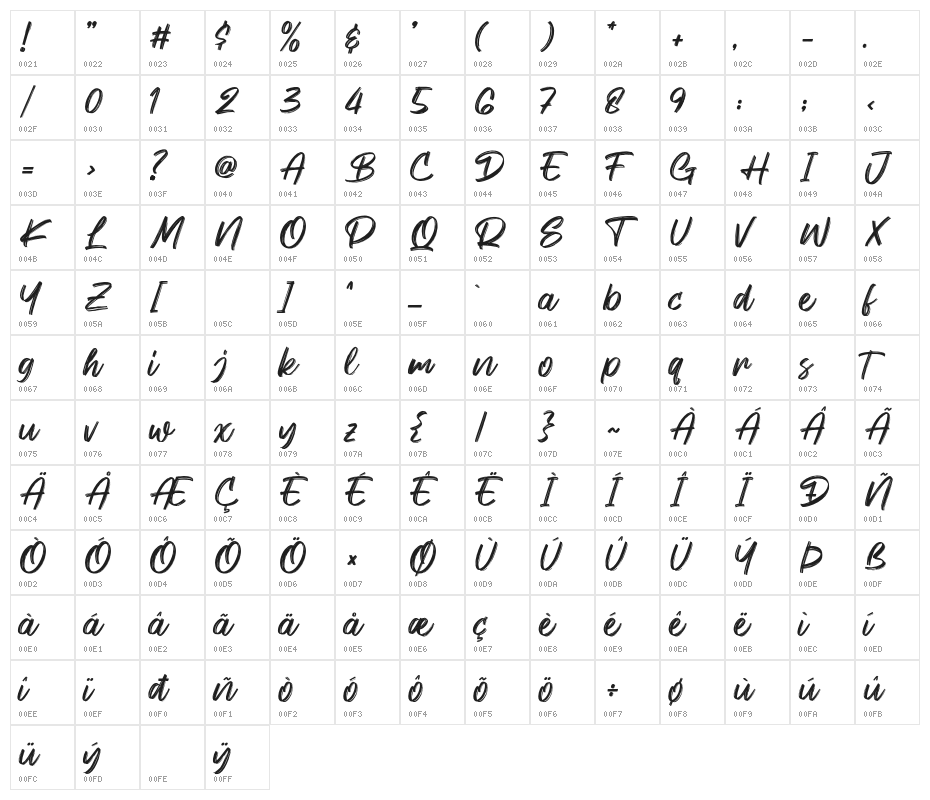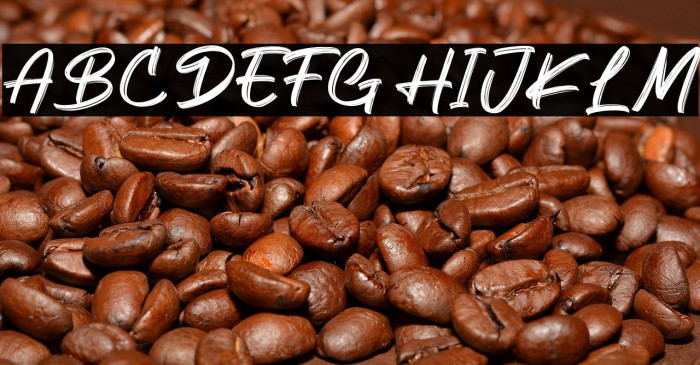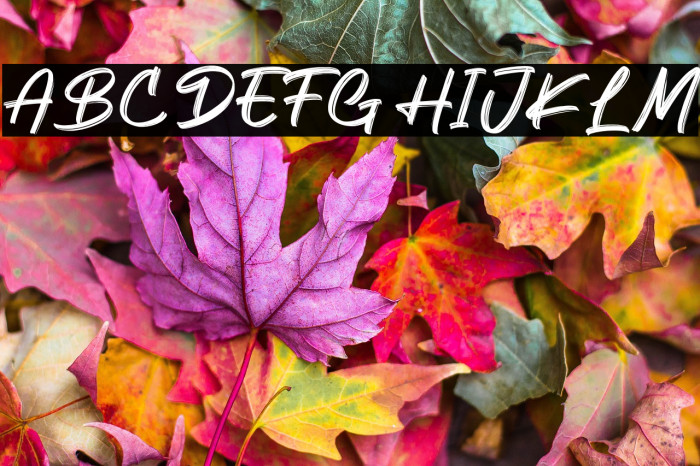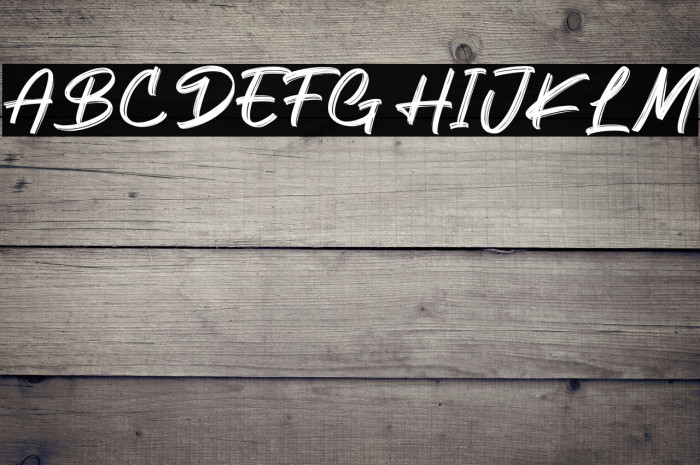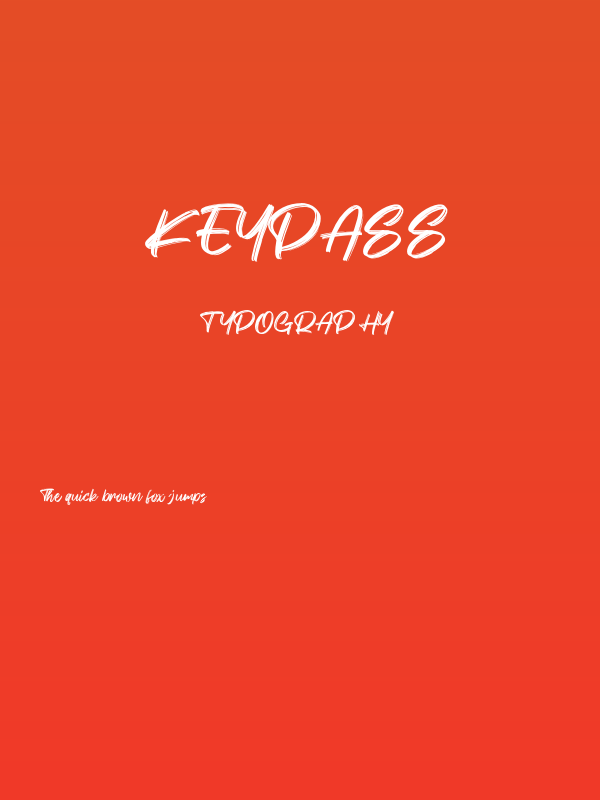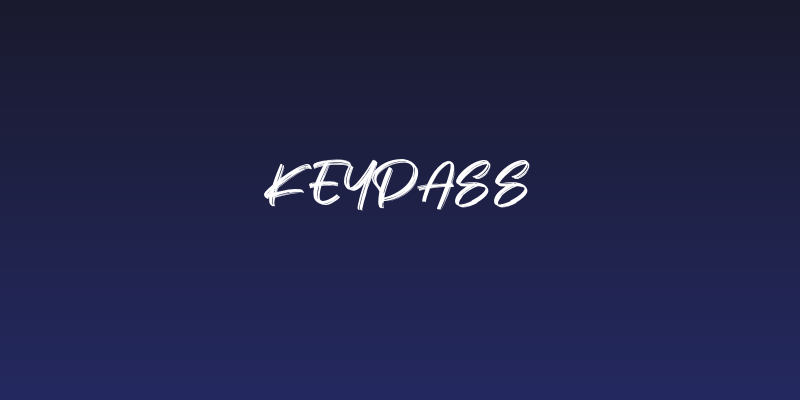
Keypass Font
Keypass Description
This font features a dynamic and energetic handwritten style, characterized by bold, sweeping strokes that convey a sense of motion and fluidity. The letters are slightly slanted, adding to the casual and informal feel. The uppercase and lowercase letters maintain a consistent style, with a playful yet sophisticated appearance. The numbers and special characters are equally expressive, ensuring a cohesive look across all text elements. This font is perfect for projects that require a personal touch or a creative flair.
| Use Case | Logos, Headlines, Creative projects |
| Proposed Projects | Ideal for branding, social media graphics, invitations, and creative posters. |